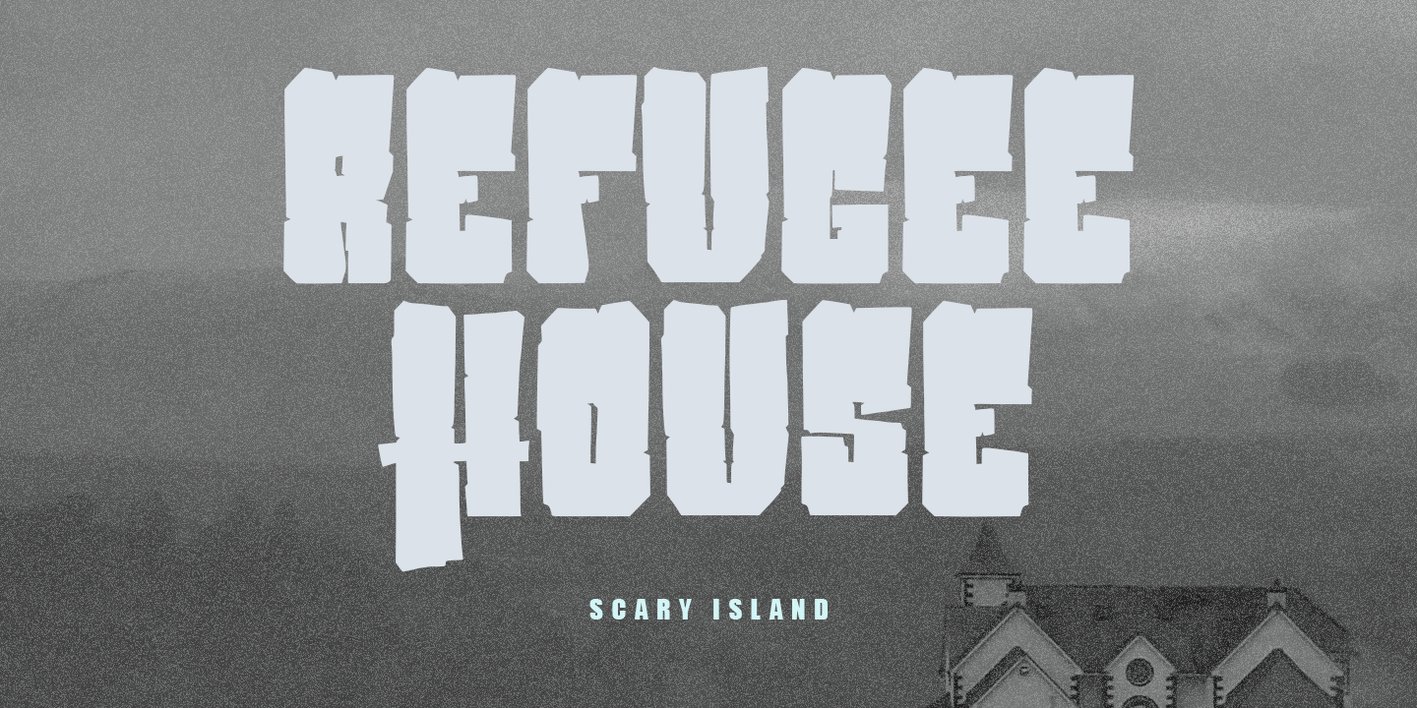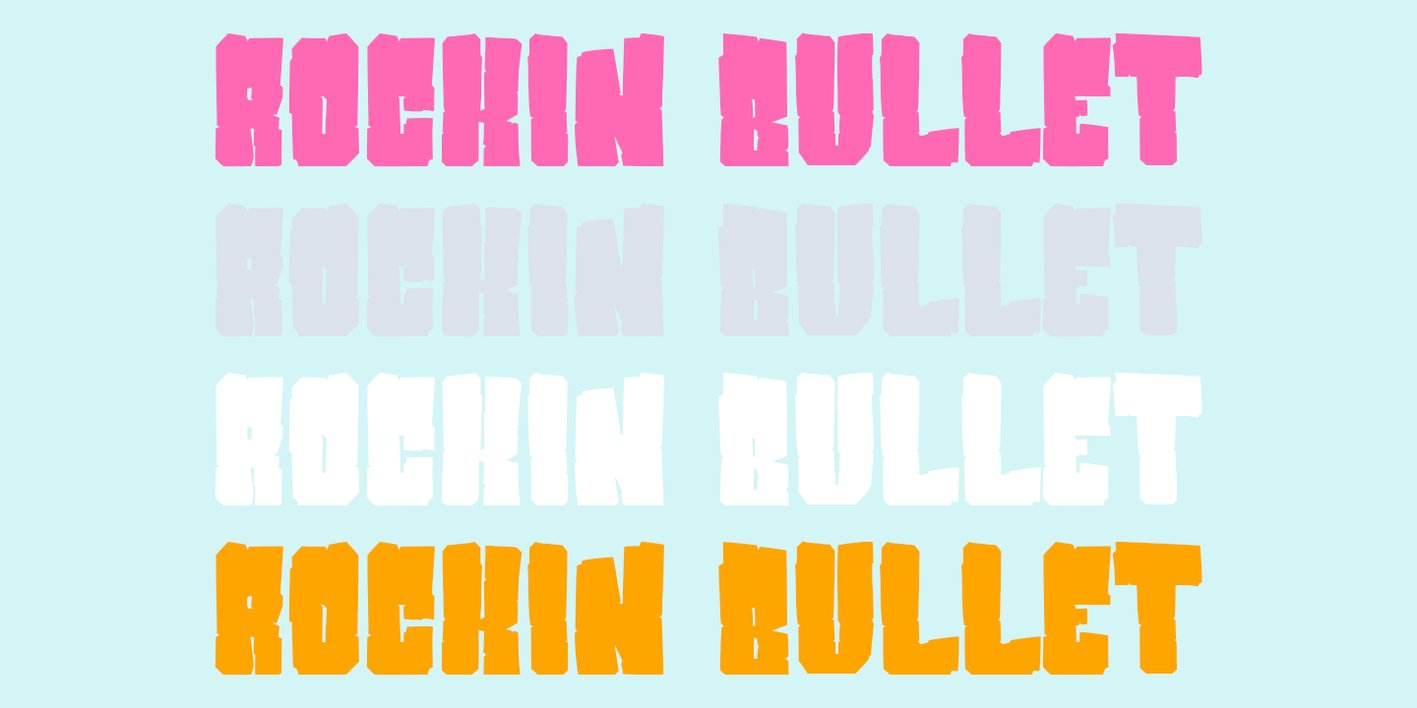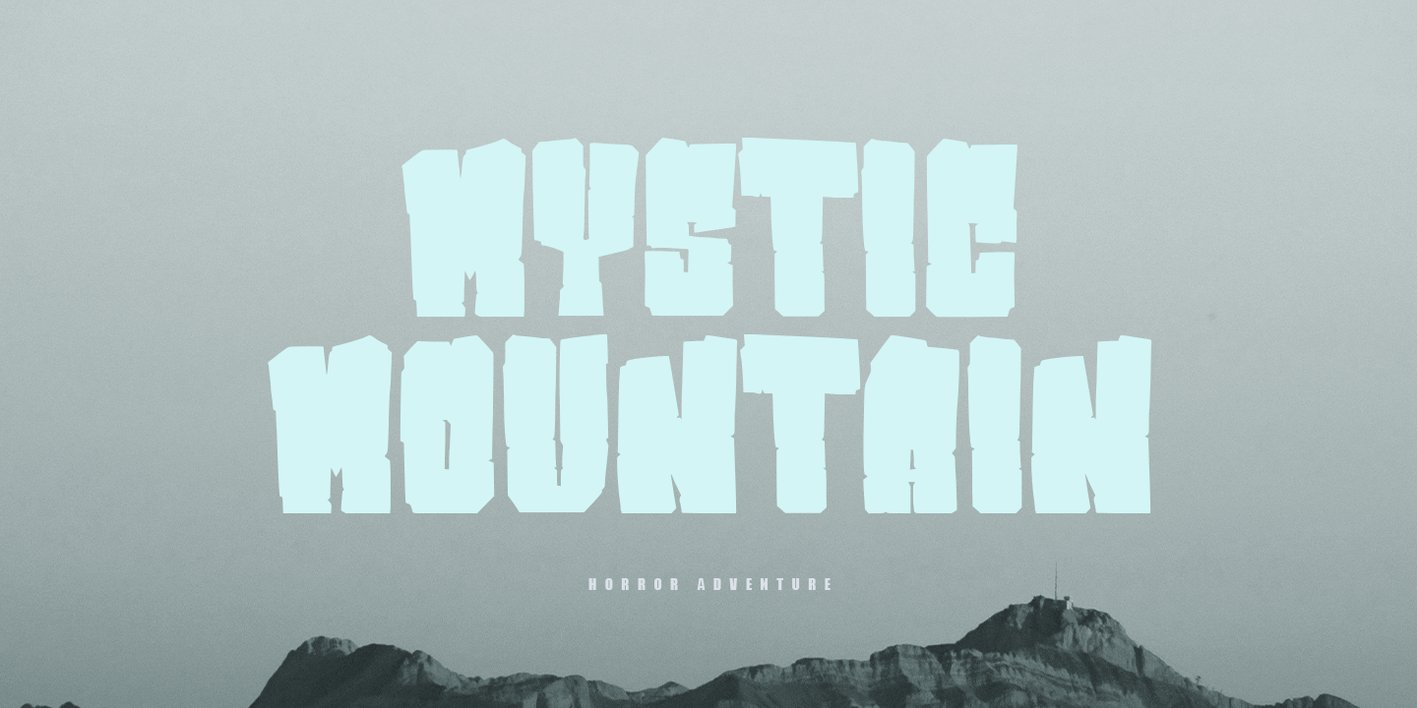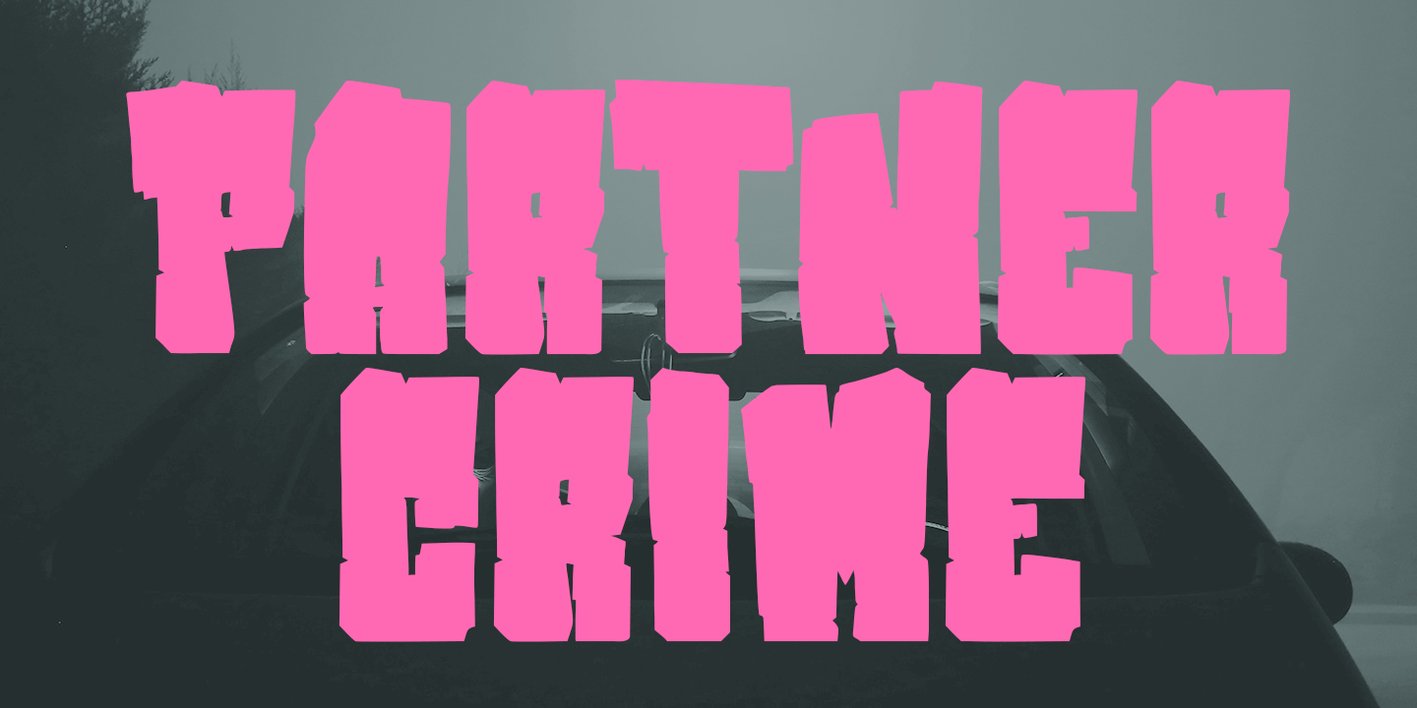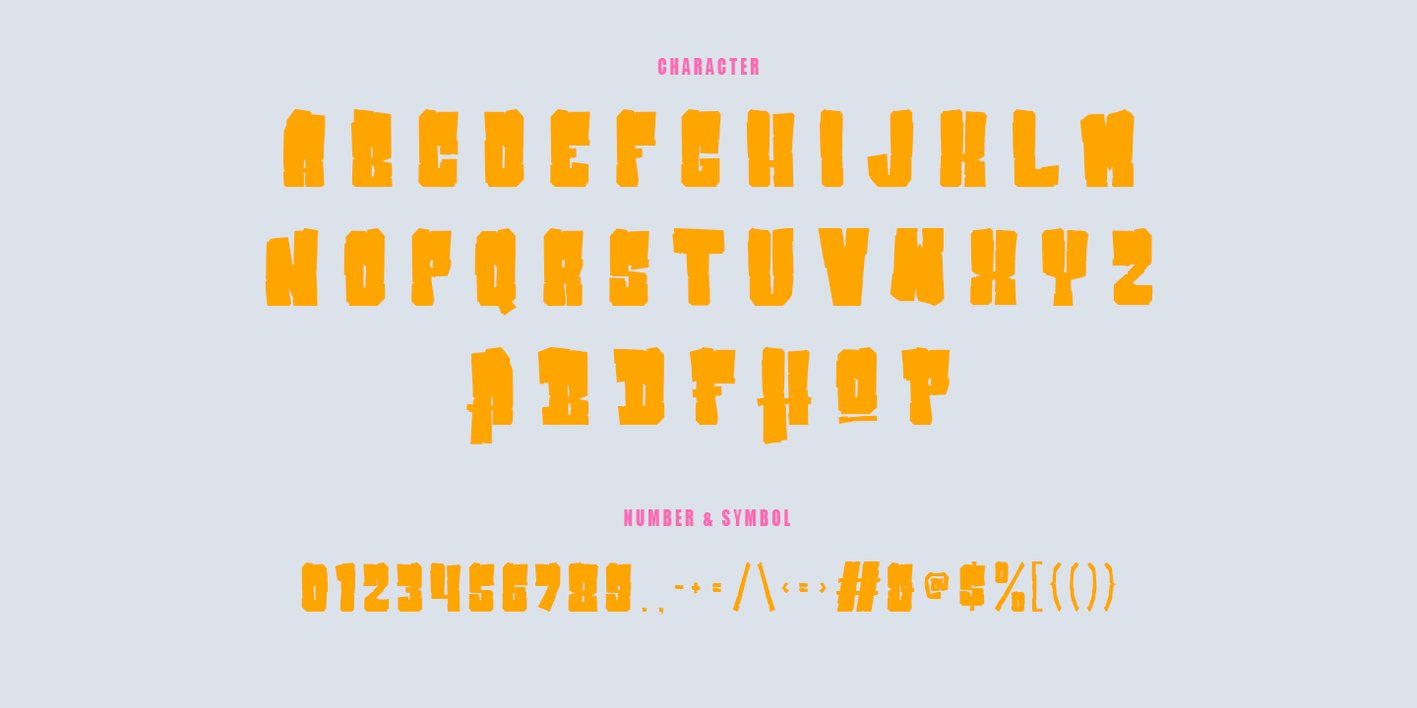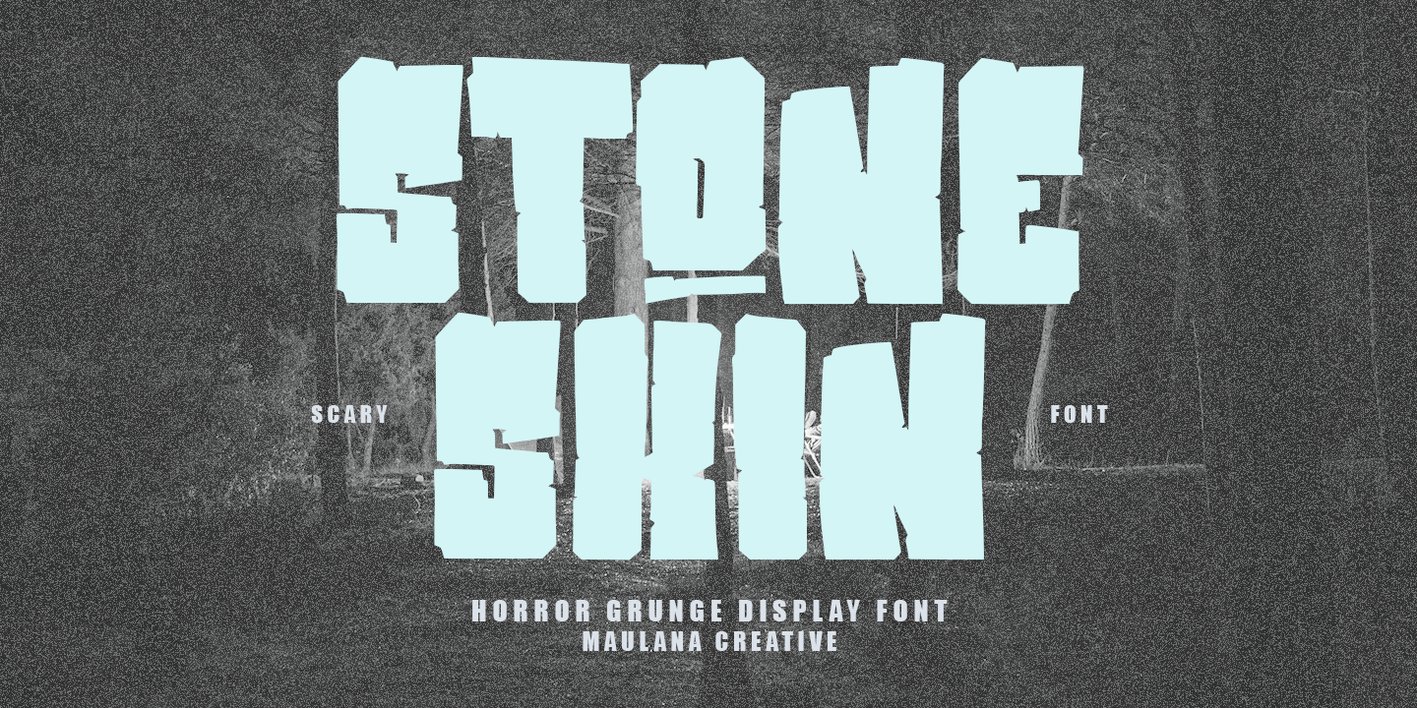
MC Stone Skin Font
Stone Skin horror grunge font, fun character with alternates to give you an extra creative work. Stone Skin horror grunge font support multilingual language.